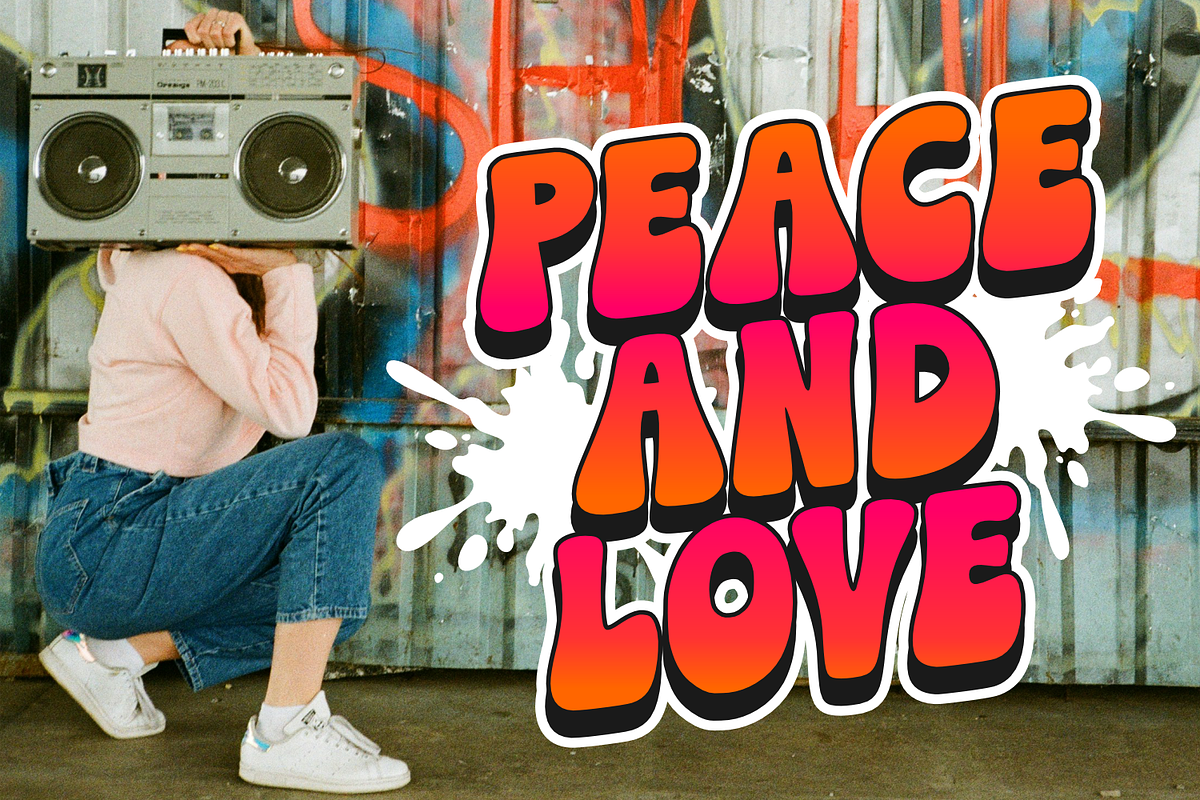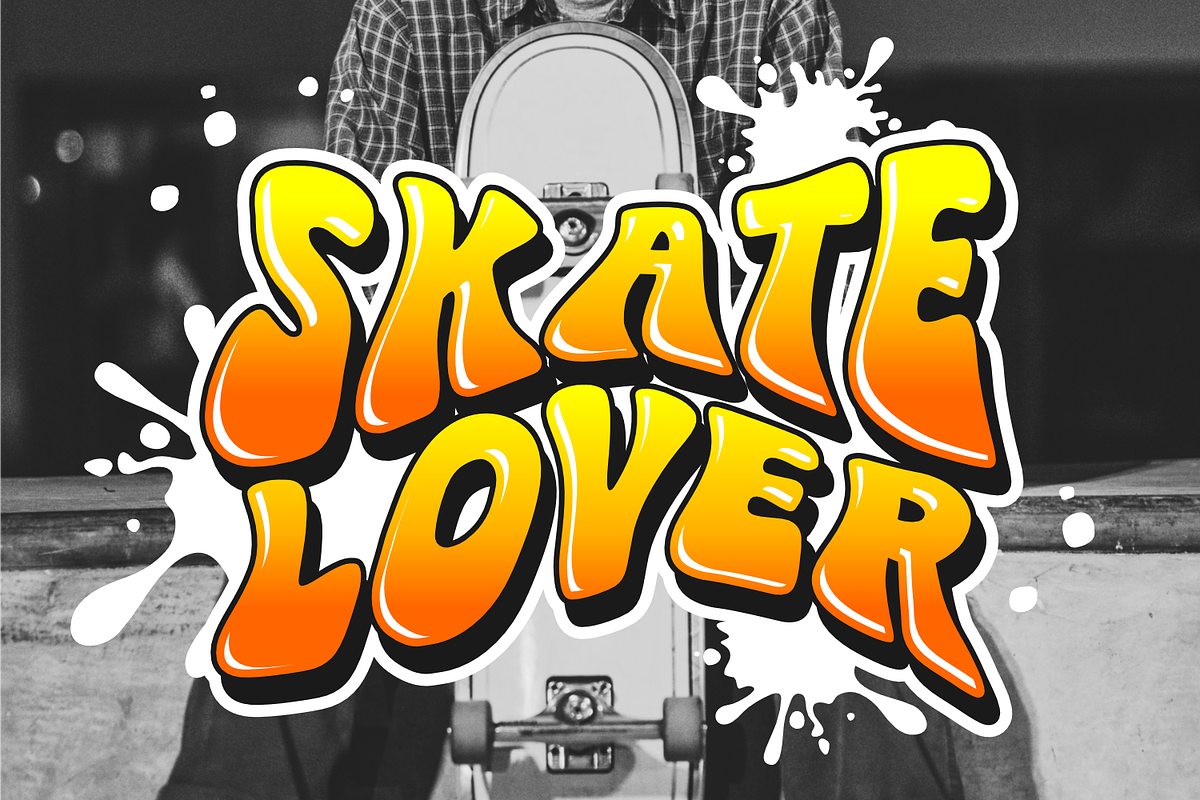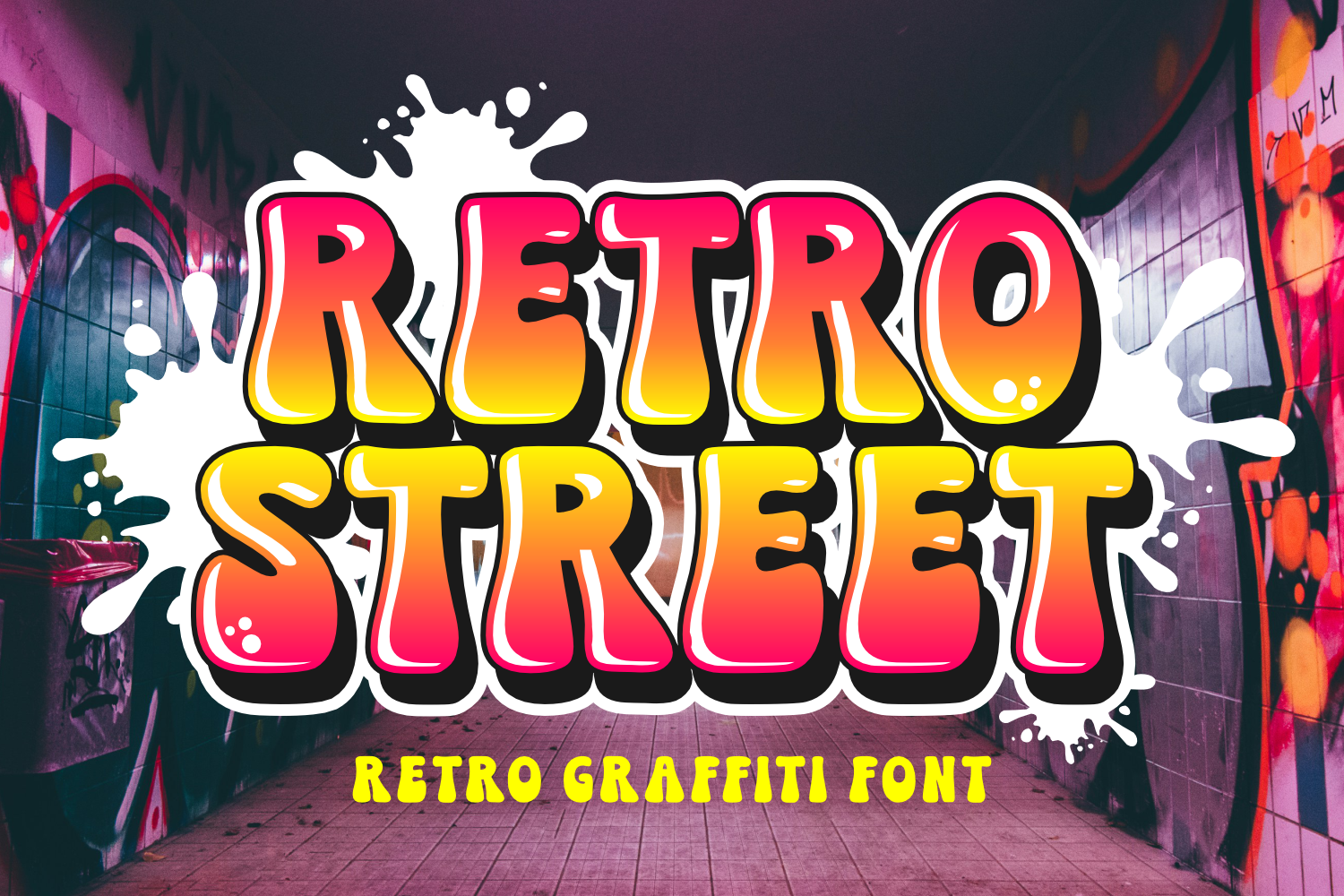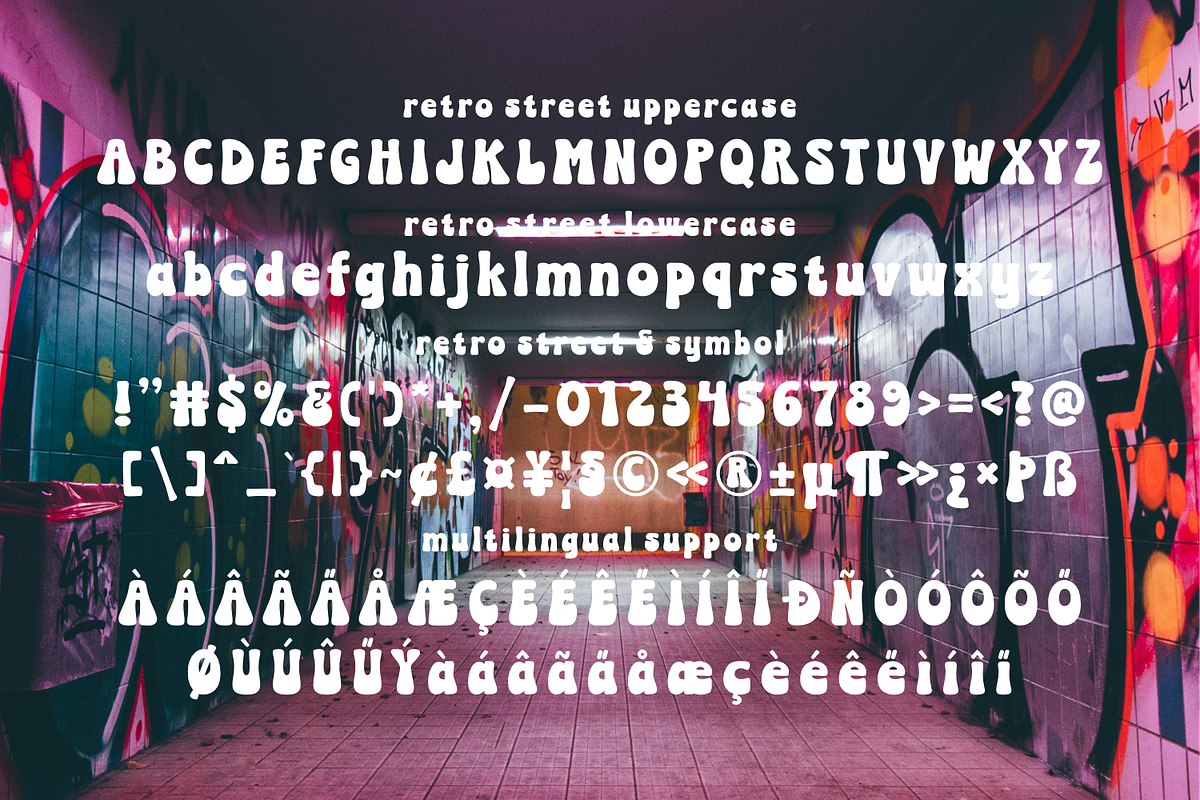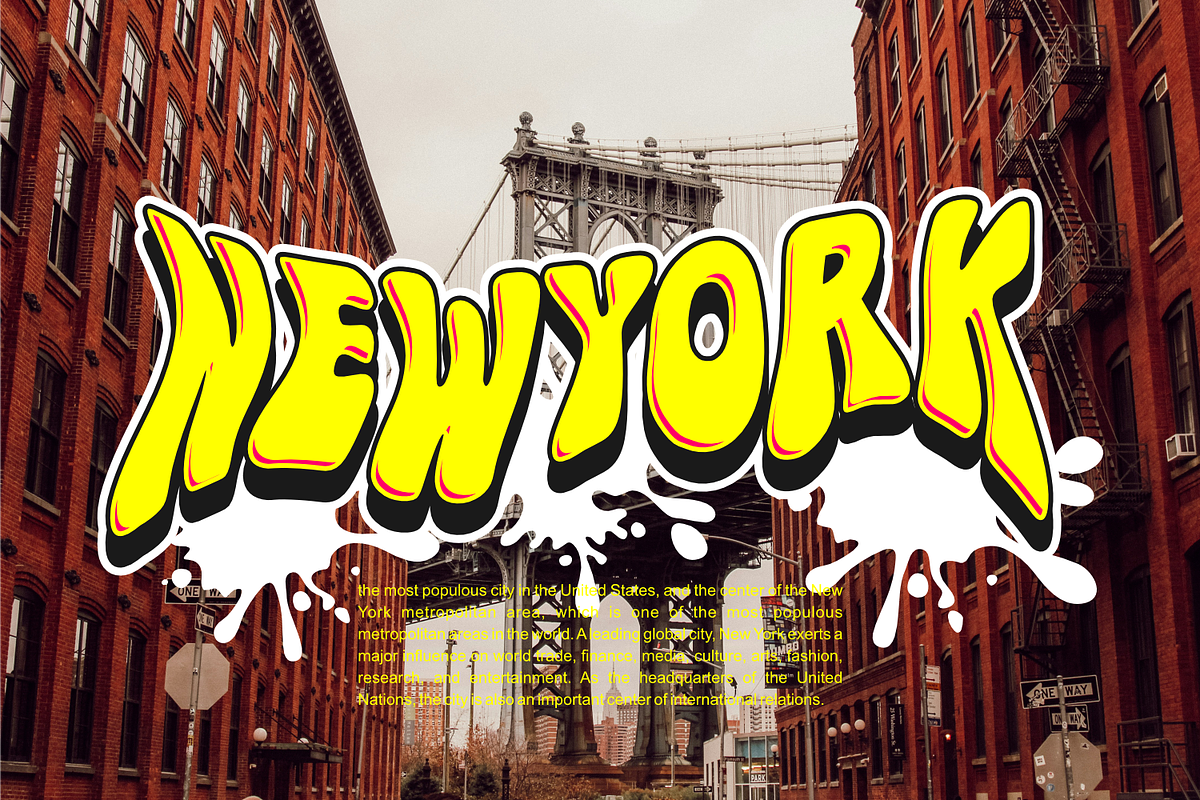
Retro Street - Graffiti Font
Unleash a blast from the past with Retro Street, a distinctly styled graffiti font that brings to life the nostalgia-saturated era of classic street art. Marrying thick and thin strokes in a unique way, Retro Street captures the raw, edgy energy of yesteryears with a fresh twist. Overflowing with aesthetic appeal, it sets the tone for a widespread range of designs. Retro Street seamlessly integrates with media such as logos, stickers, event posters, record labels, and brings a certain fluidity and authenticity to dynamic themes like dance parties, hip hop, and skateboard designs. This old-school yet vibrant font sparks creativity while staying true to its nostalgic roots.